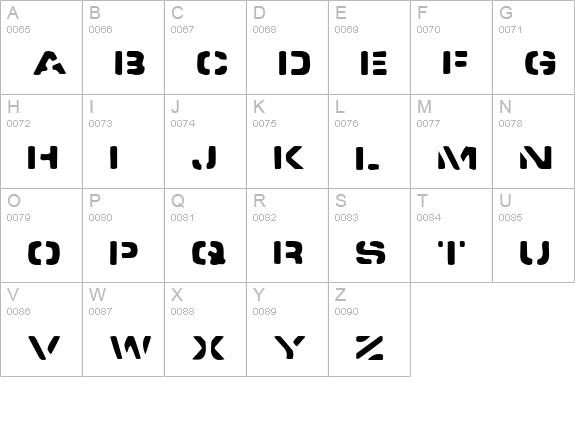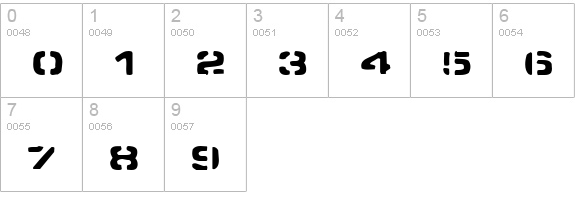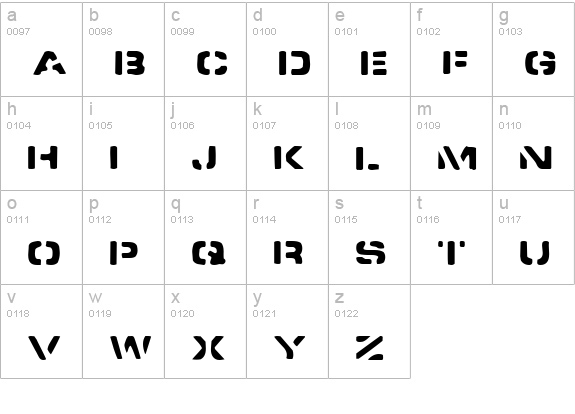
Introducing Spacedock Stencil font, a bold and striking display typeface that is perfect for adding a touch of modernity to your designs. This font combines clean lines with a distinct stencil design, creating a unique and eye-catching visual appeal. With its sharp edges and geometric shapes, Spacedock Stencil font exudes a sense of strength and confidence. Whether you're creating posters, logos, or headlines, this font will effortlessly command attention and make a lasting impression. One of the standout features of Spacedock Stencil font is its versatility. It can be used for both futuristic and industrial-themed designs, as well as for more contemporary and edgy projects. Its strong presence on the page ensures that your message will be conveyed with impact and authority. And the best part? Spacedock Stencil font is available for free! You can easily download it at FontsMarket.com, a trusted source for high-quality fonts. This means that you can start using this stunning typeface in your projects right away, without any additional cost. Don't miss out on the opportunity to enhance your designs with Spacedock Stencil font. Its modern aesthetic, bold character, and free availability make it a must-have for any designer looking to make a statement. Download it today and let your creativity take flight!